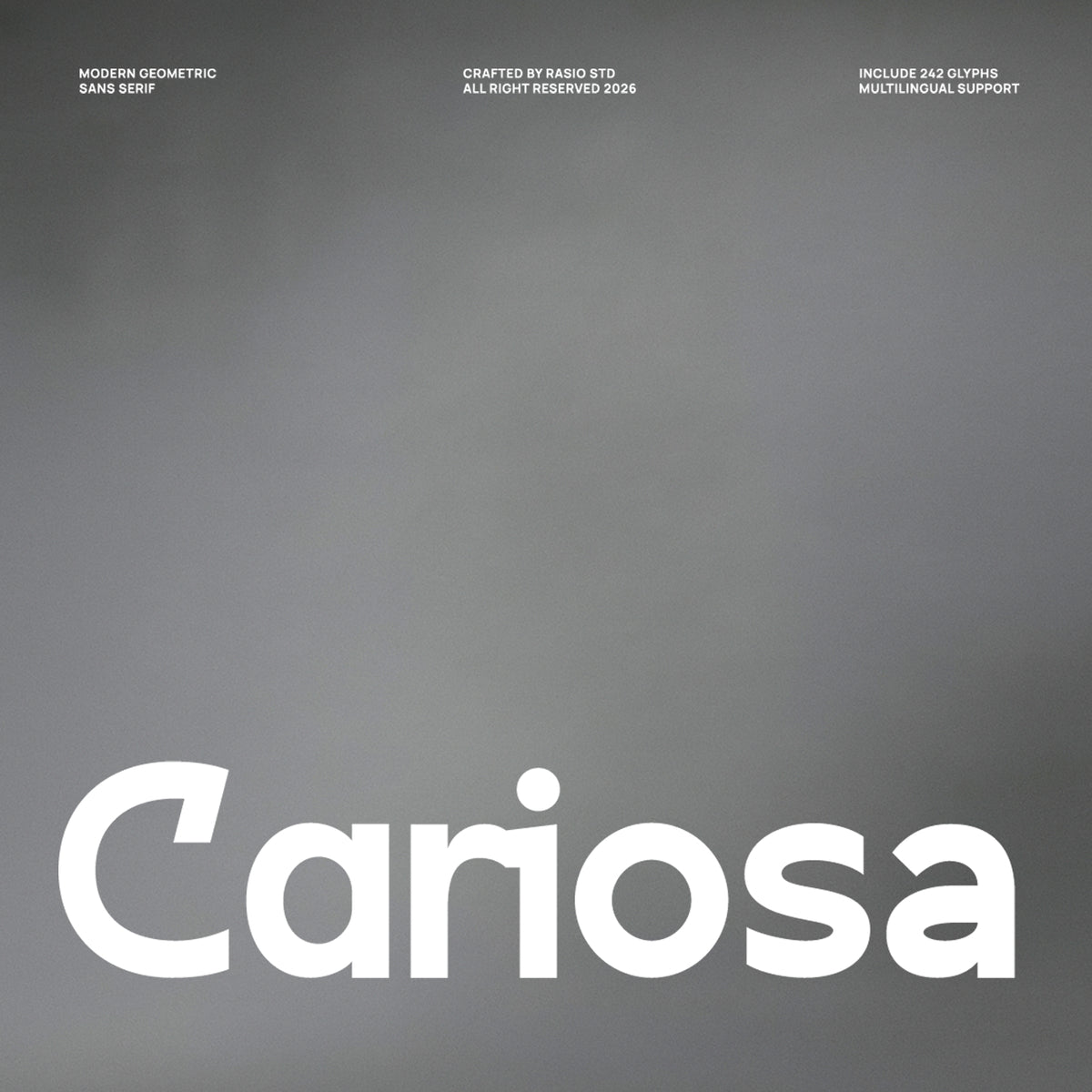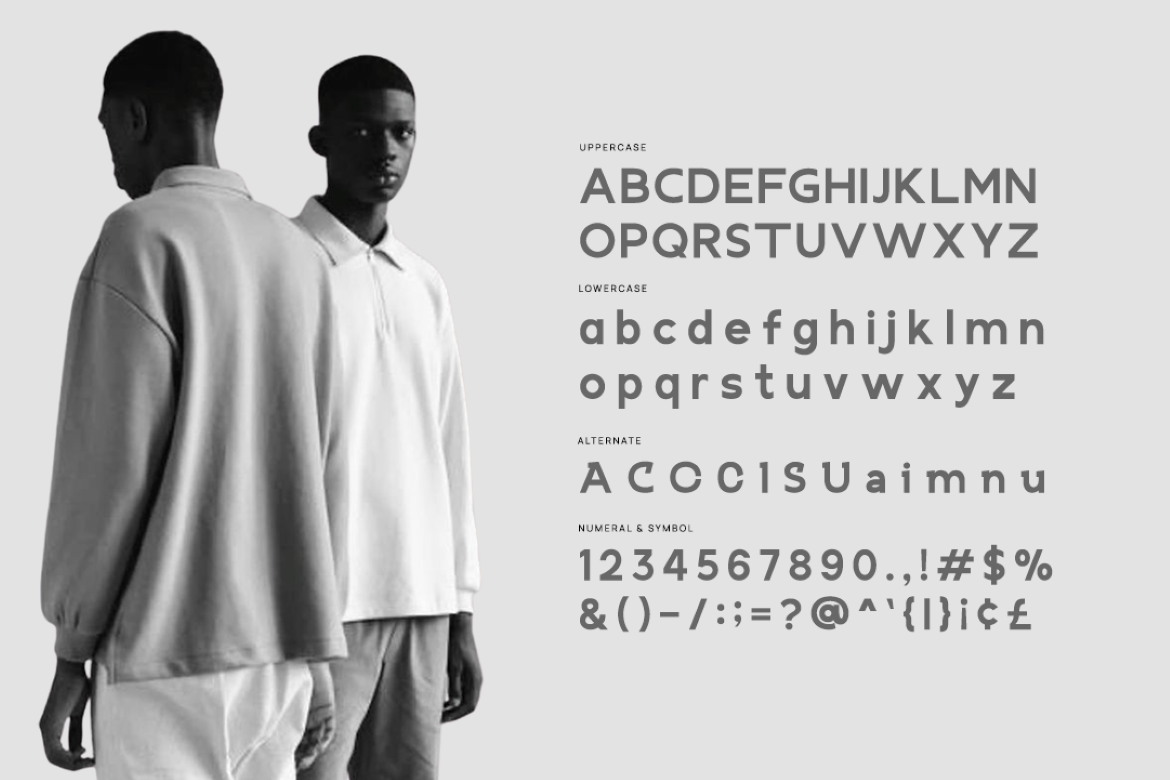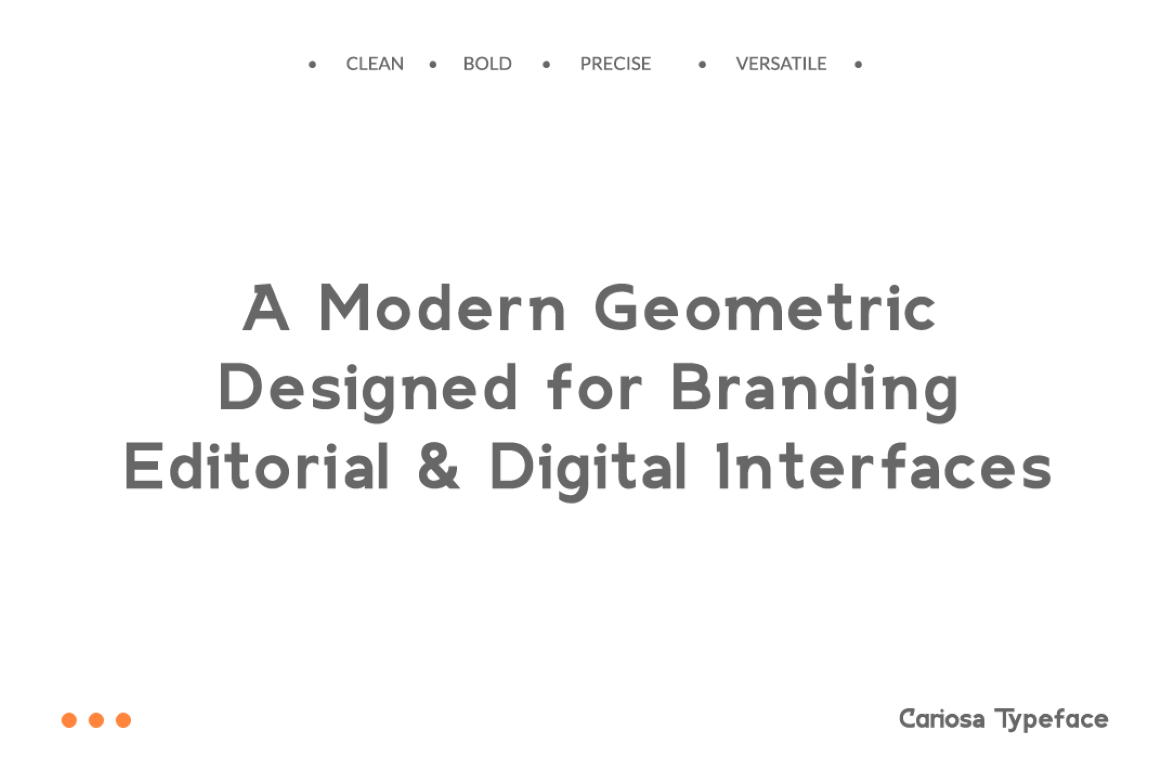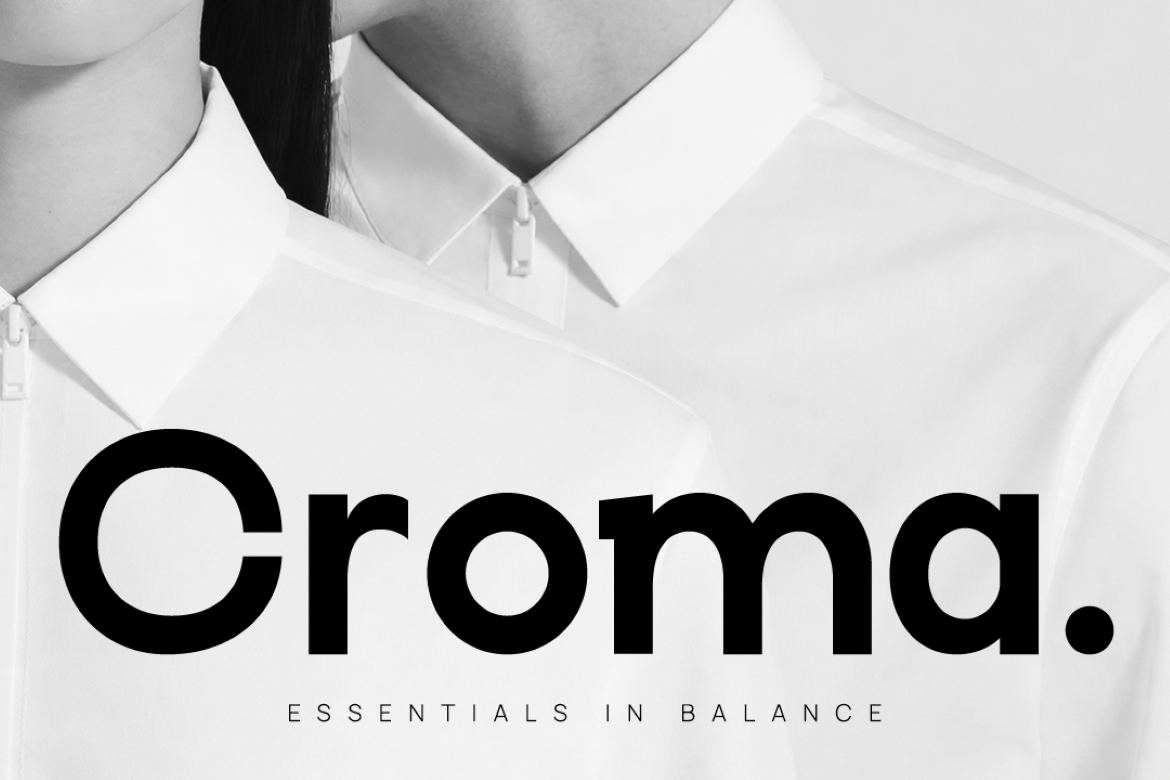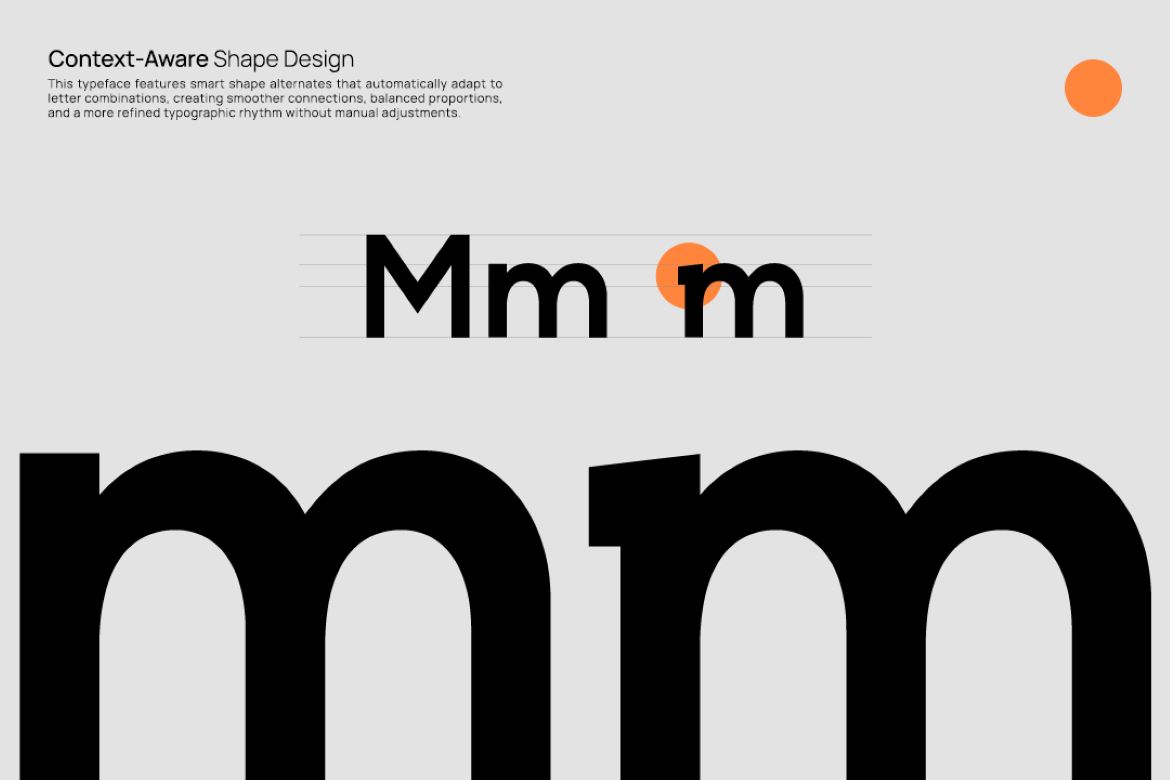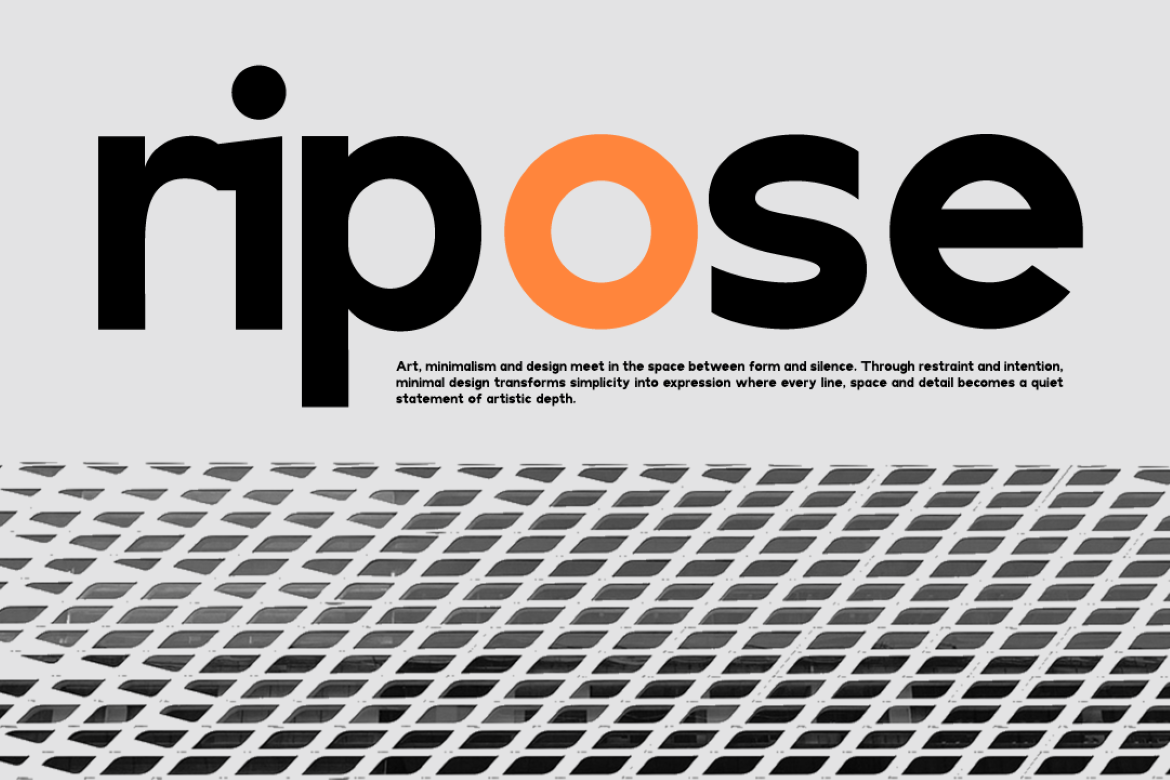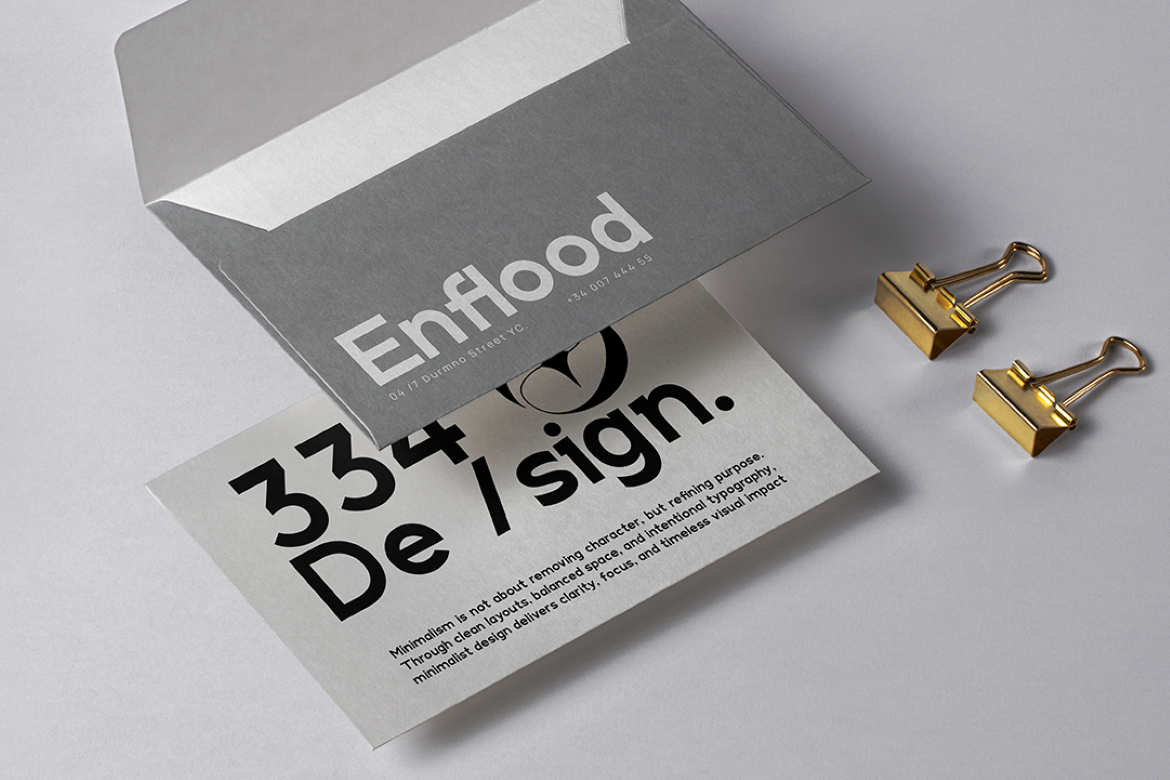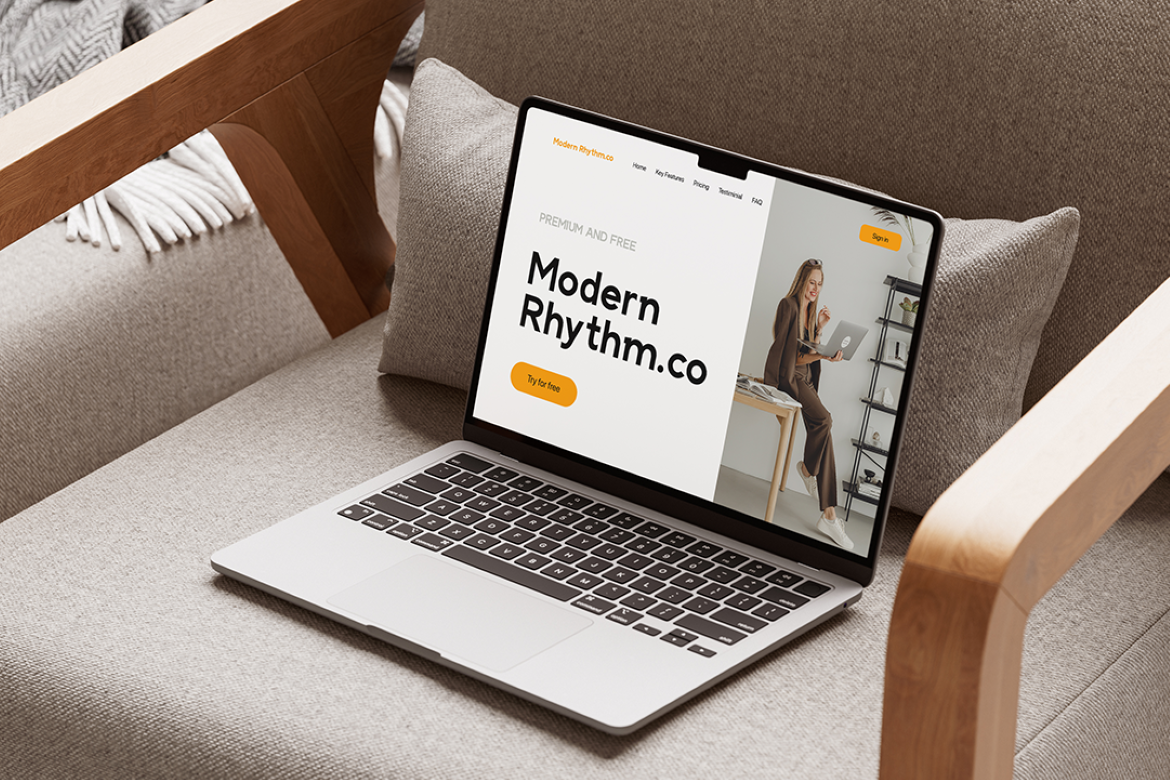
Cariosa Modern Geometric Sans Serif Font
Cariosa is a modern geometric sans serif font designed with clarity, balance, and versatility in mind. It features clean proportions, smooth curves, and subtle humanist details that create a warm yet professional appearance. Cariosa performs well across both display and body text applications. The font includes uppercase and lowercase characters, numerals, punctuation, symbols, stylistic alternates, and multilingual support.
Relevance and Use Cases is perfect for modern design needs where clarity and neutrality are essential. It works well for branding systems, editorial layouts, digital interfaces, marketing materials, and corporate communications. Its balanced design makes it suitable for both visual statements and long-form readability.
Alternate Support